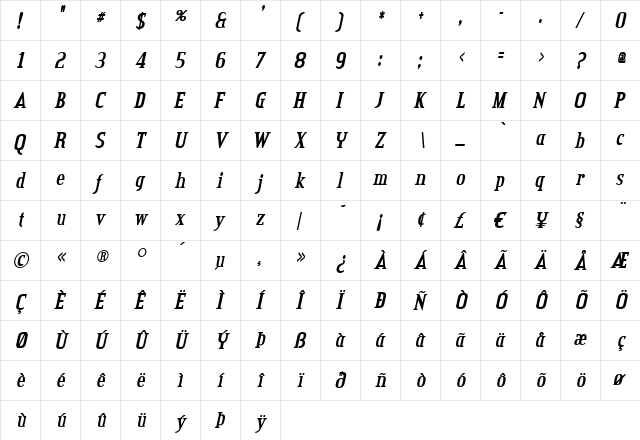
Credit Valley Bold Italic Font Preview
Design Context for Credit Valley Typeface
Credit Valley takes a measured approach to typography — its balanced proportions and neutral character make it a reliable workhorse for both digital and print work. The dynamic lean of this cut emphasises speed and emphasis in any layout. The heavy weight commands attention and anchors typographic hierarchies.
Pro Tip: Use Credit Valley for emphasis, pull quotes, and subheadings where its slanted energy can add rhythm to the layout.